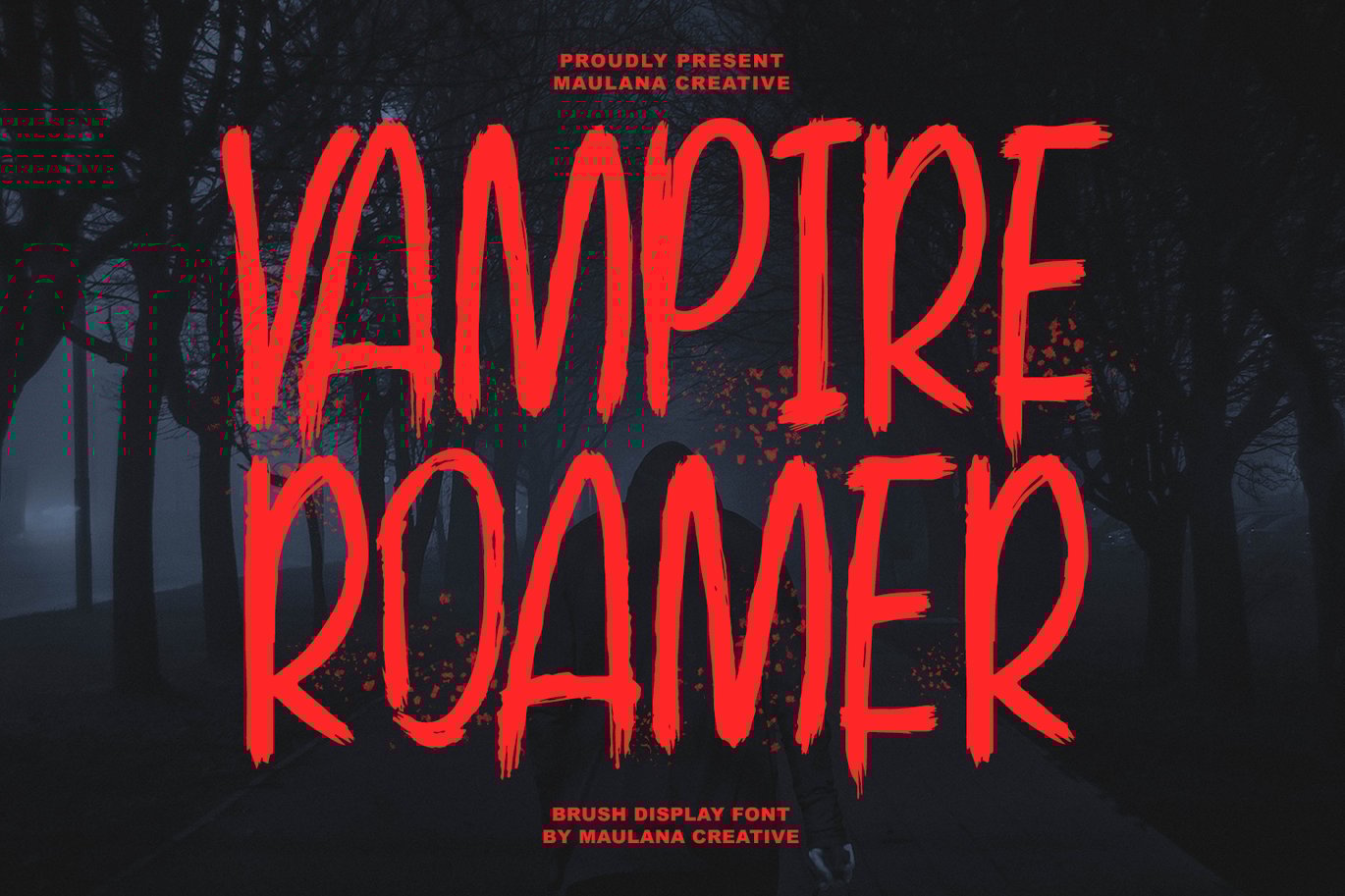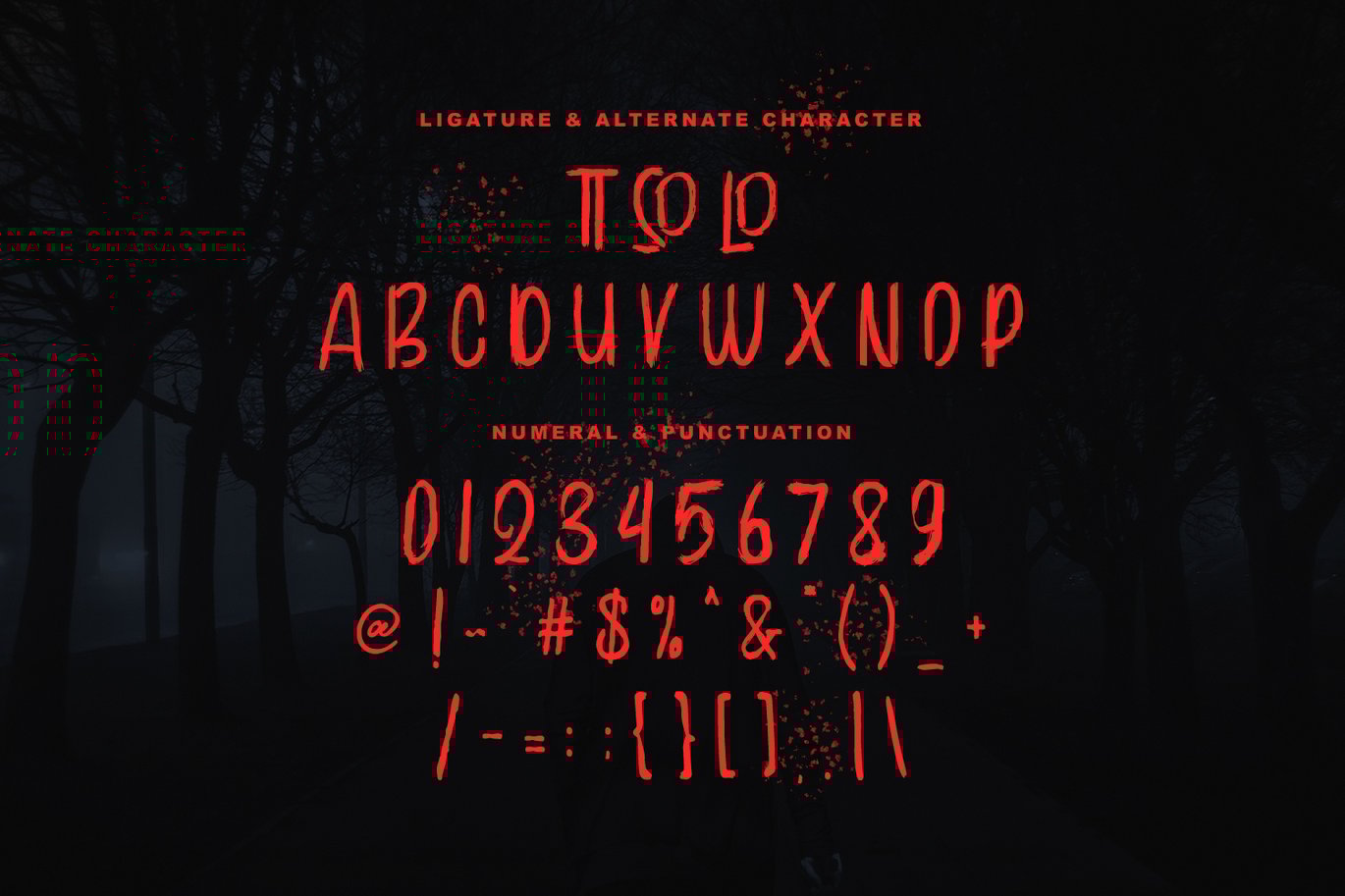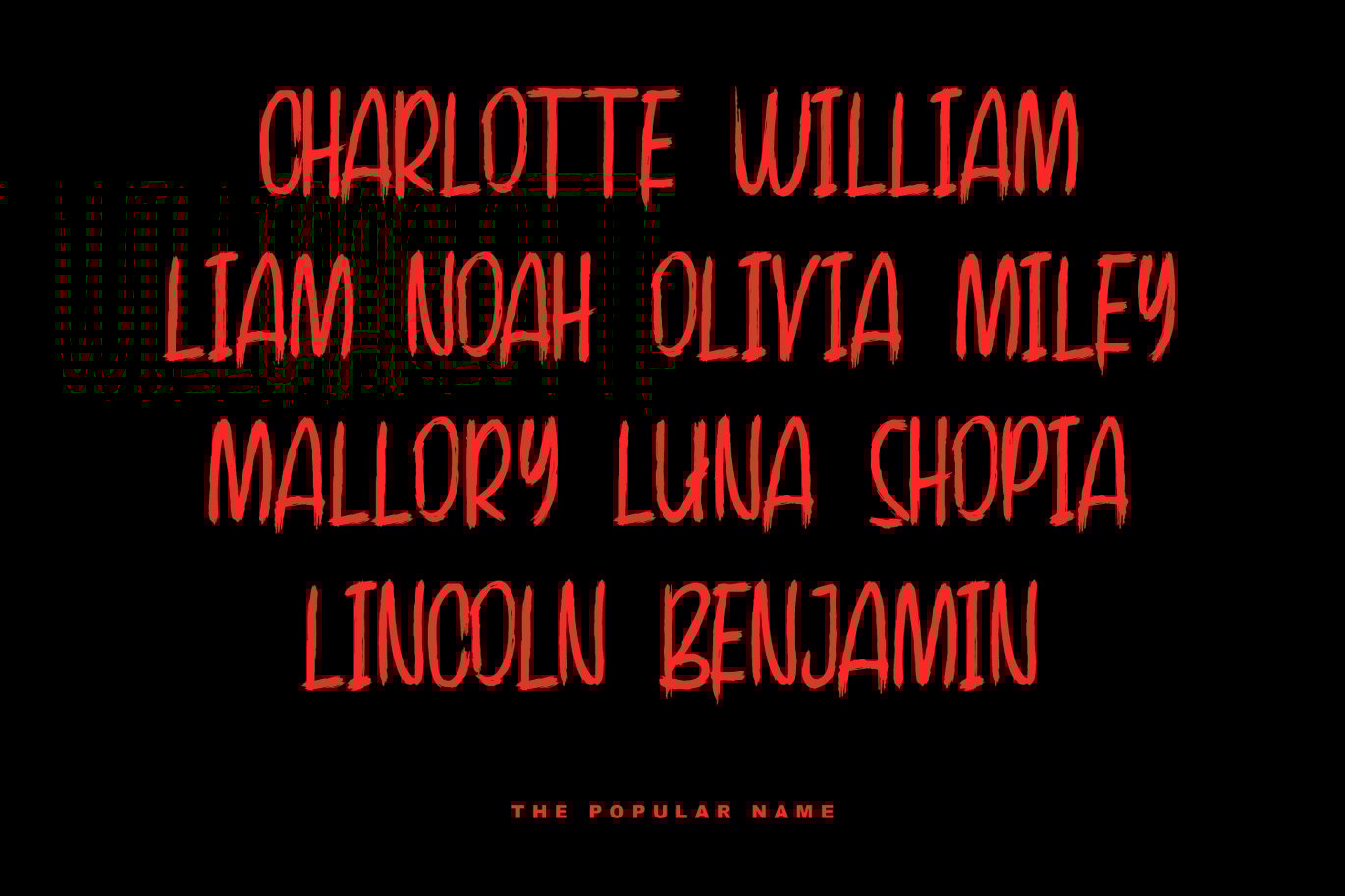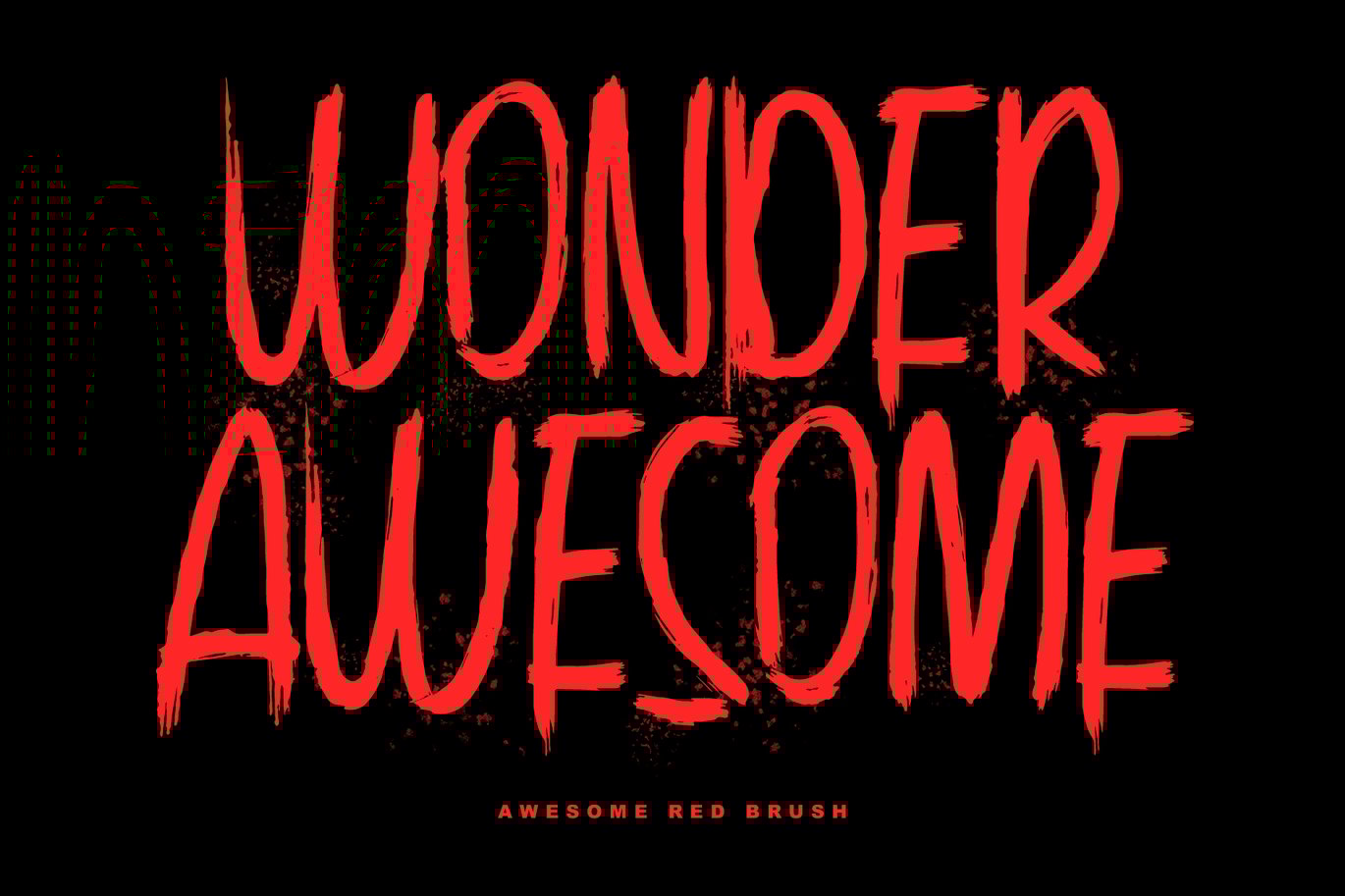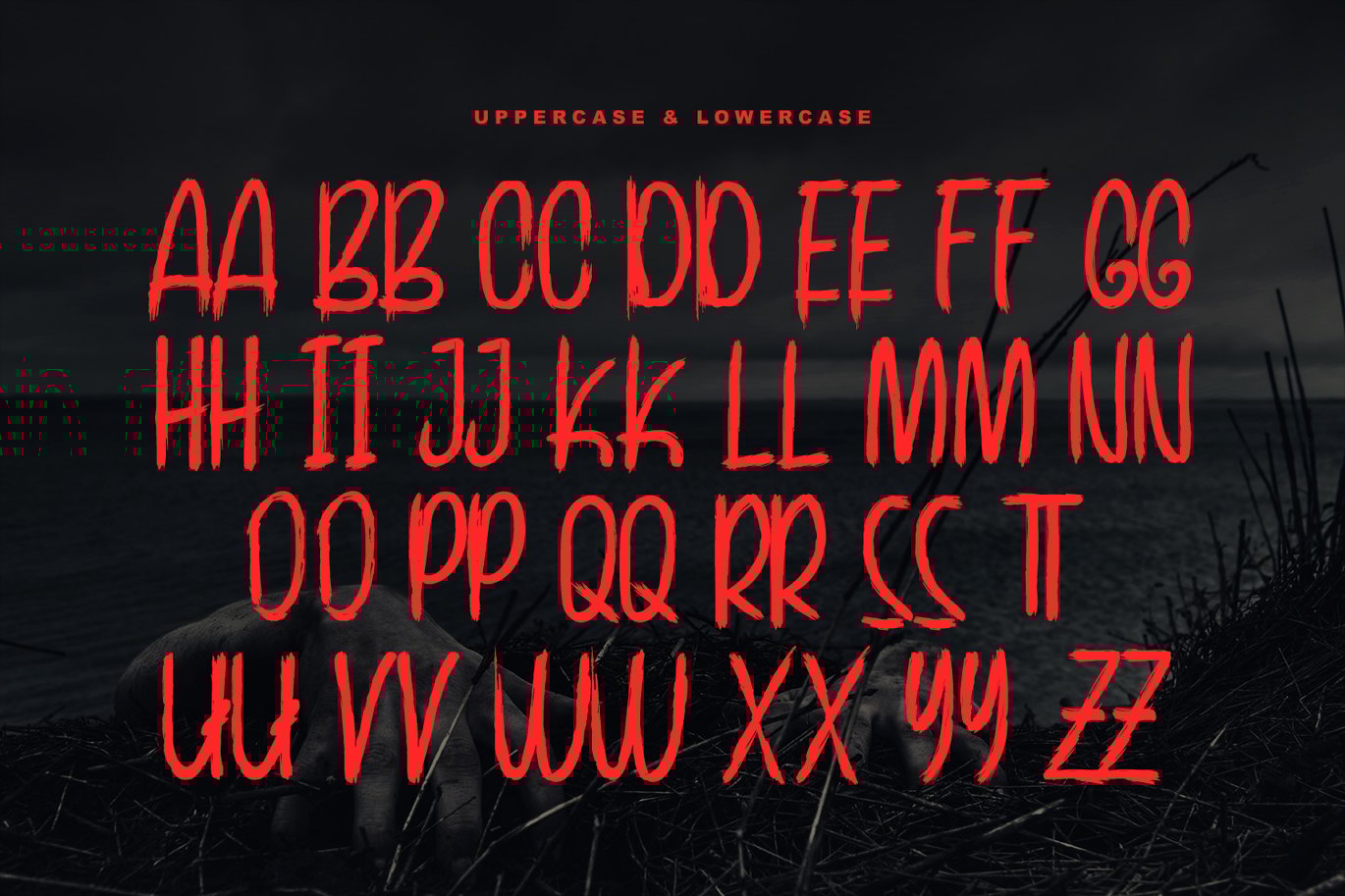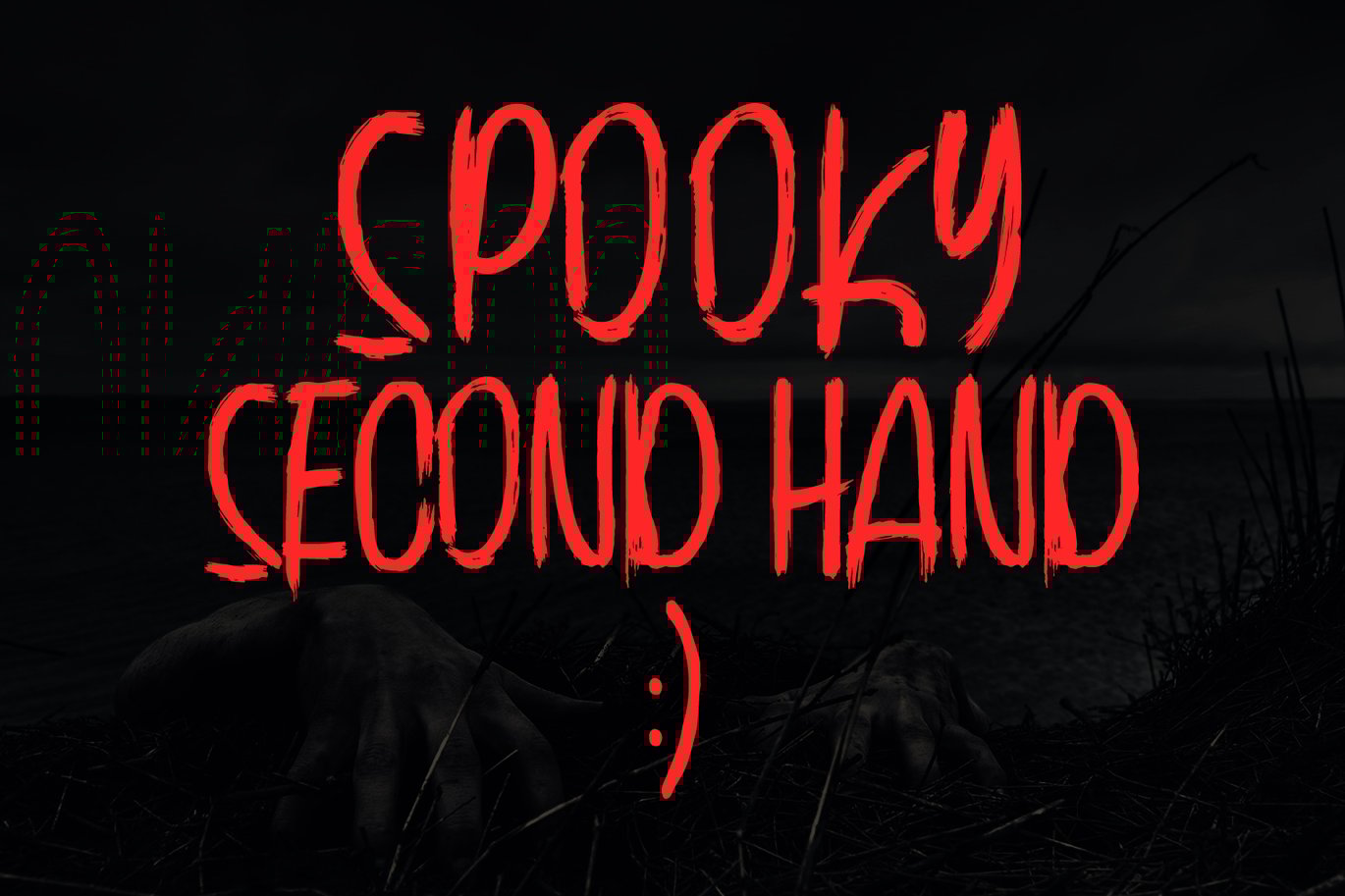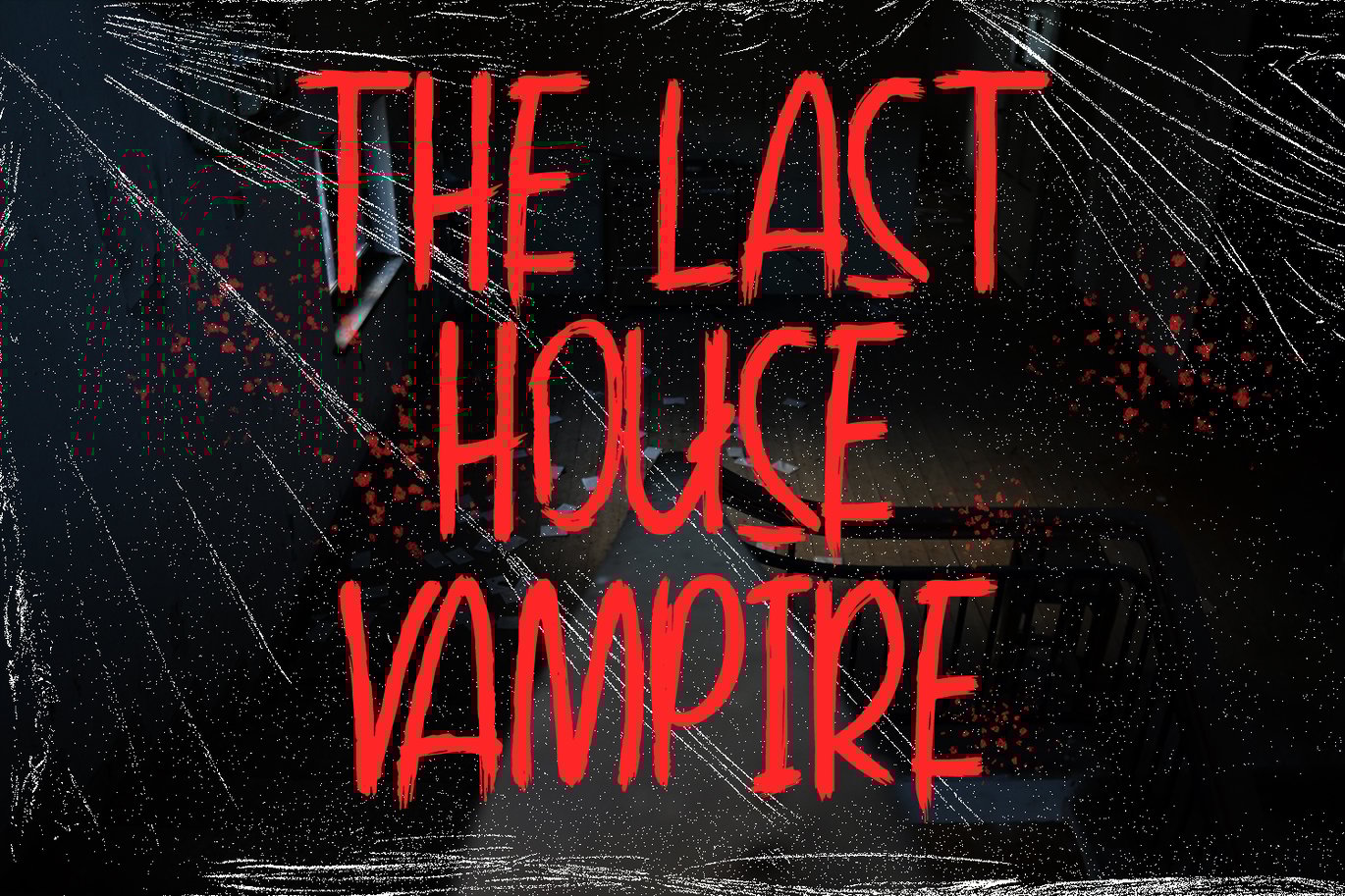
Vampire Roamer Brush Display Font
Vampire Roamer brush display font, bold stroke, fun character with a bit of ligatures. To give you an extra creative work. Vampire Roamer brush display font support multilingual more than 100+ language. This font is good for logo design, Social media, Movie Titles, Books Titles, a short text even a long text letter and good for your secondary text font with script or serif. Make a stunning work with Vampire Roamer brush display font.